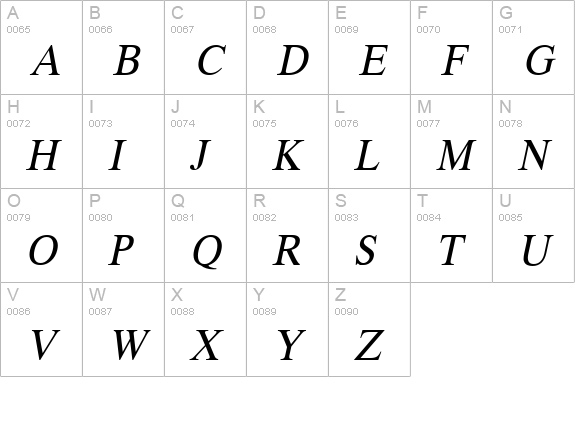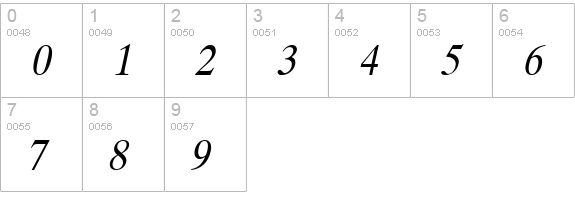
Duke Italic is a distinctive, italic variant in the Duke typeface family \xE2\x80\x94 well suited to design and typography projects.
Duke Italic font is a sophisticated and elegant typeface that exudes a sense of charm and refinement. With its sleek and stylish design, Duke Italic is perfect for adding a touch of luxury to your projects. The italicized form of this font adds a sense of dynamism and flair to any text, making it stand out and command attention. What's even better is that Duke Italic font is available for free download at FontsMarket.com. This means you can easily access this stunning font and use it in your designs without any cost. Whether you're working on branding materials, invitations, or any other creative project, Duke Italic font will elevate your work to the next level with its timeless appeal and modern aesthetic. Download Duke Italic font today and add a touch of class to your designs.